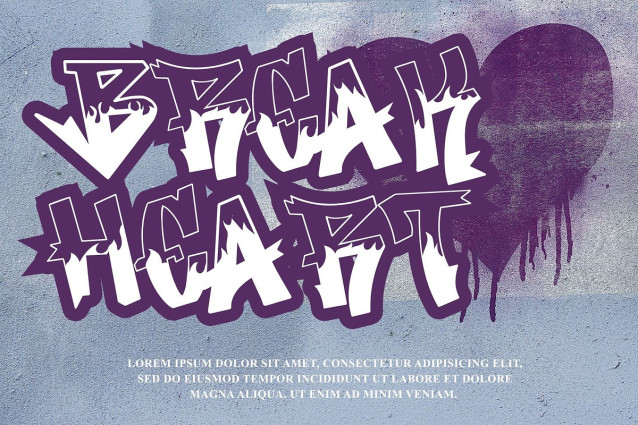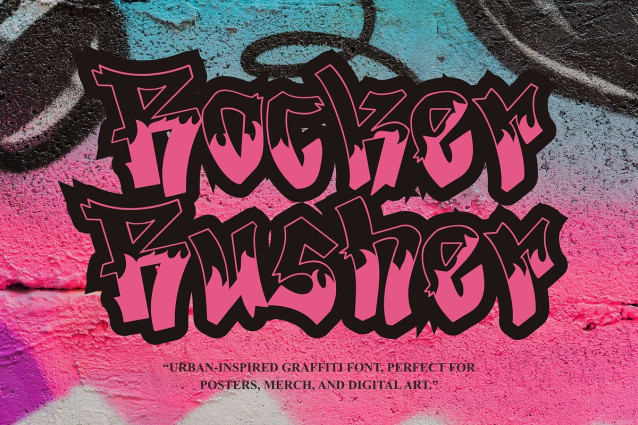
Rocker Rusher Font
Rocker Rusher Font – a bold graffiti font that exudes a powerful, cutting-edge, urban energy. This font is ideal for livening up posters, accentuating street style, bringing digital art to life, and basically any creative endeavor that requires a contemporary street style. Take your designs from casual to urban with this variable font.